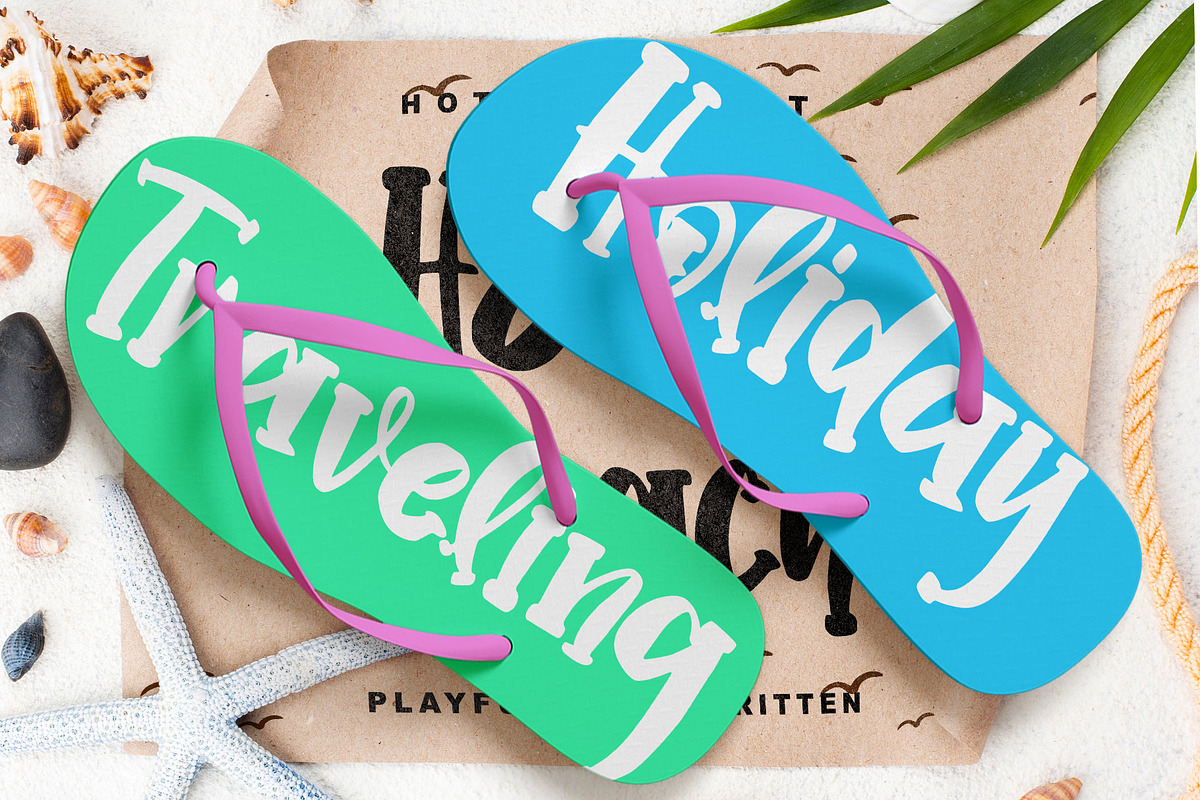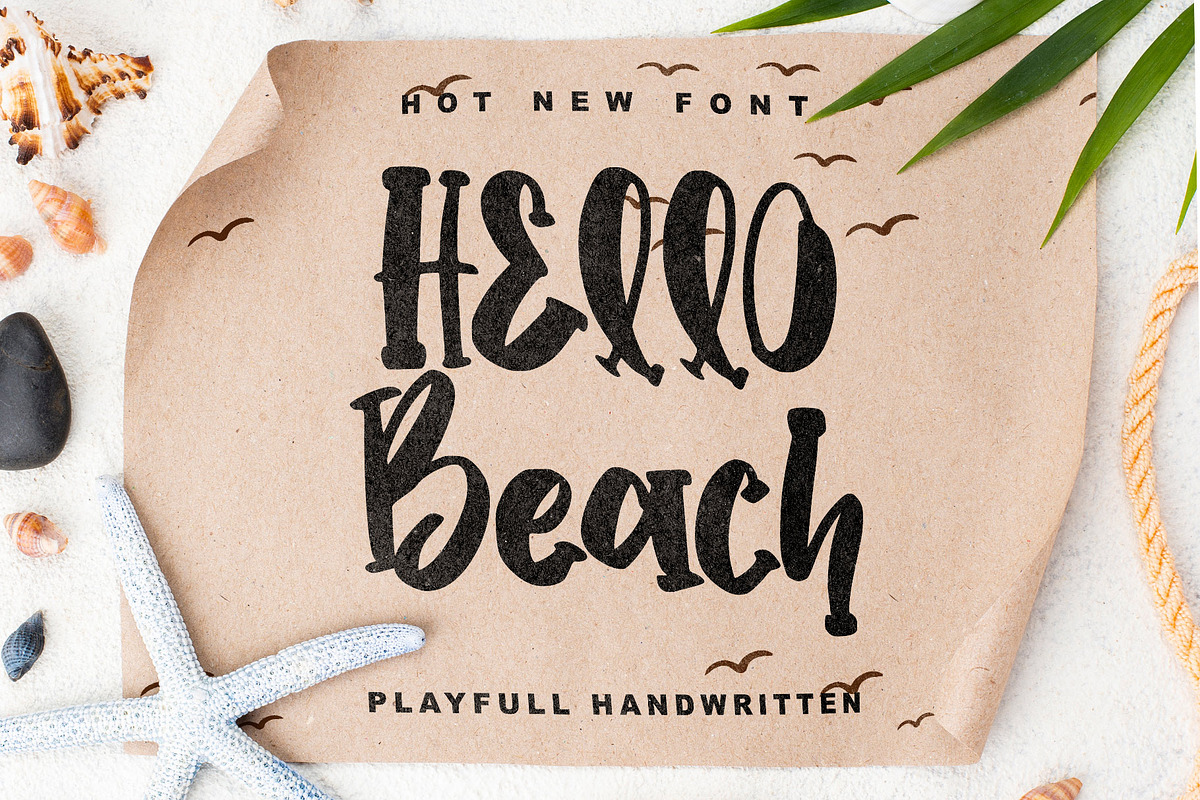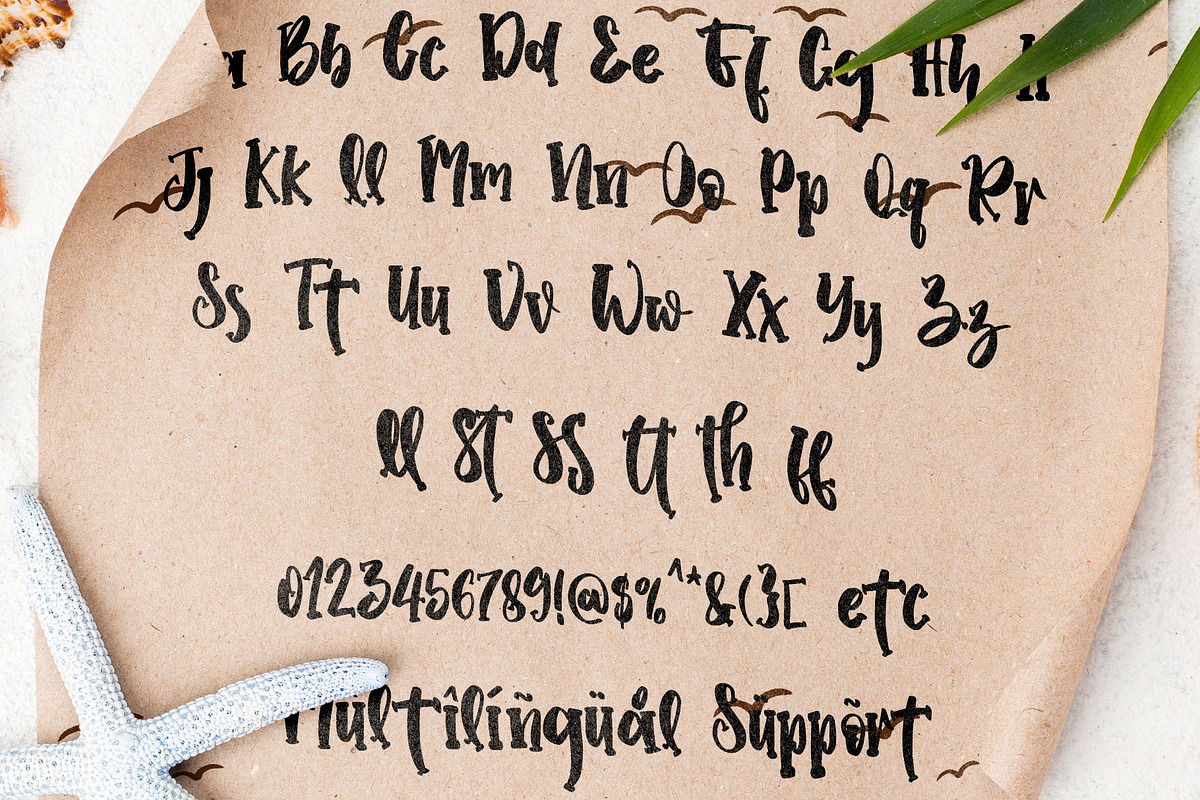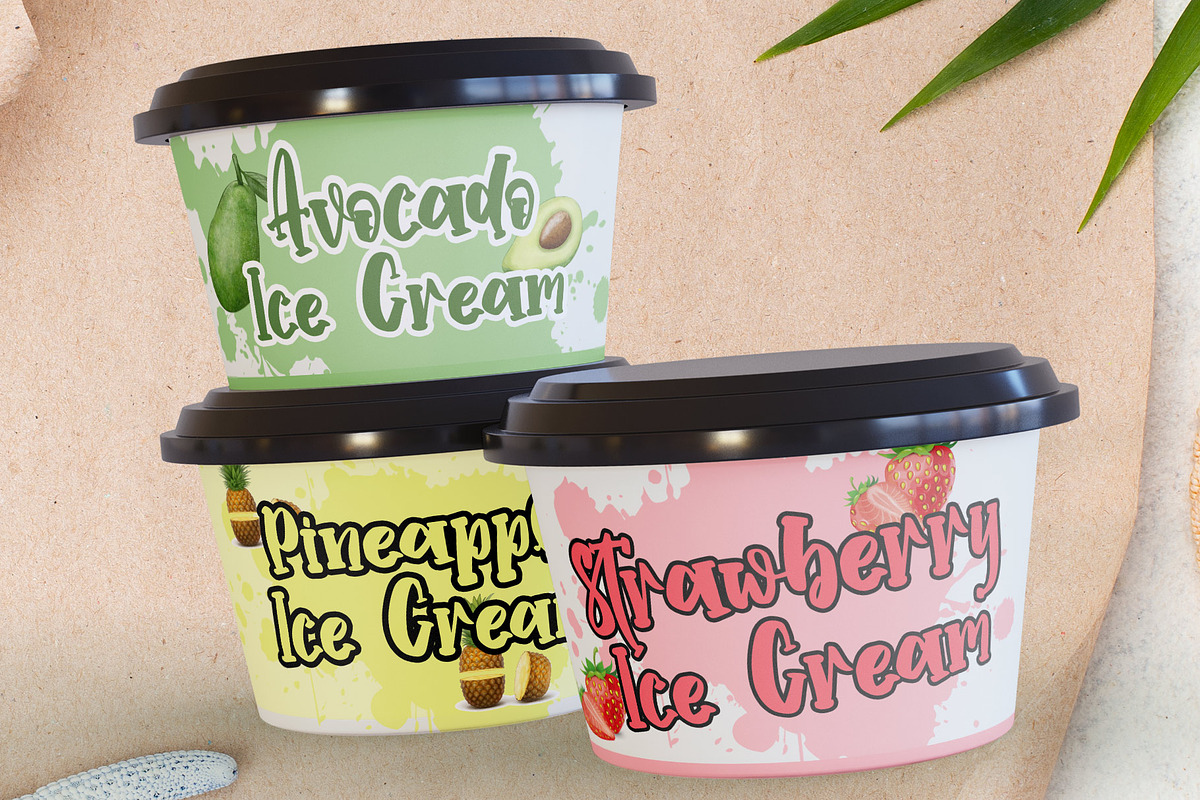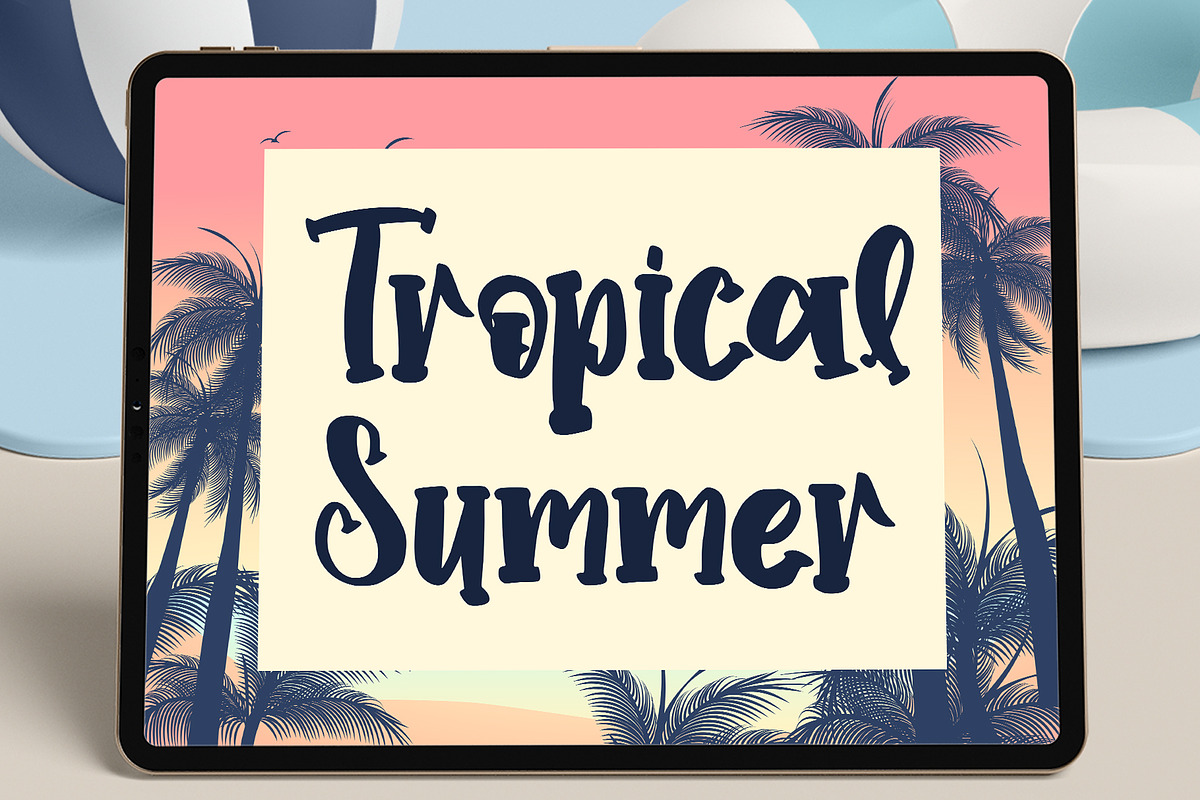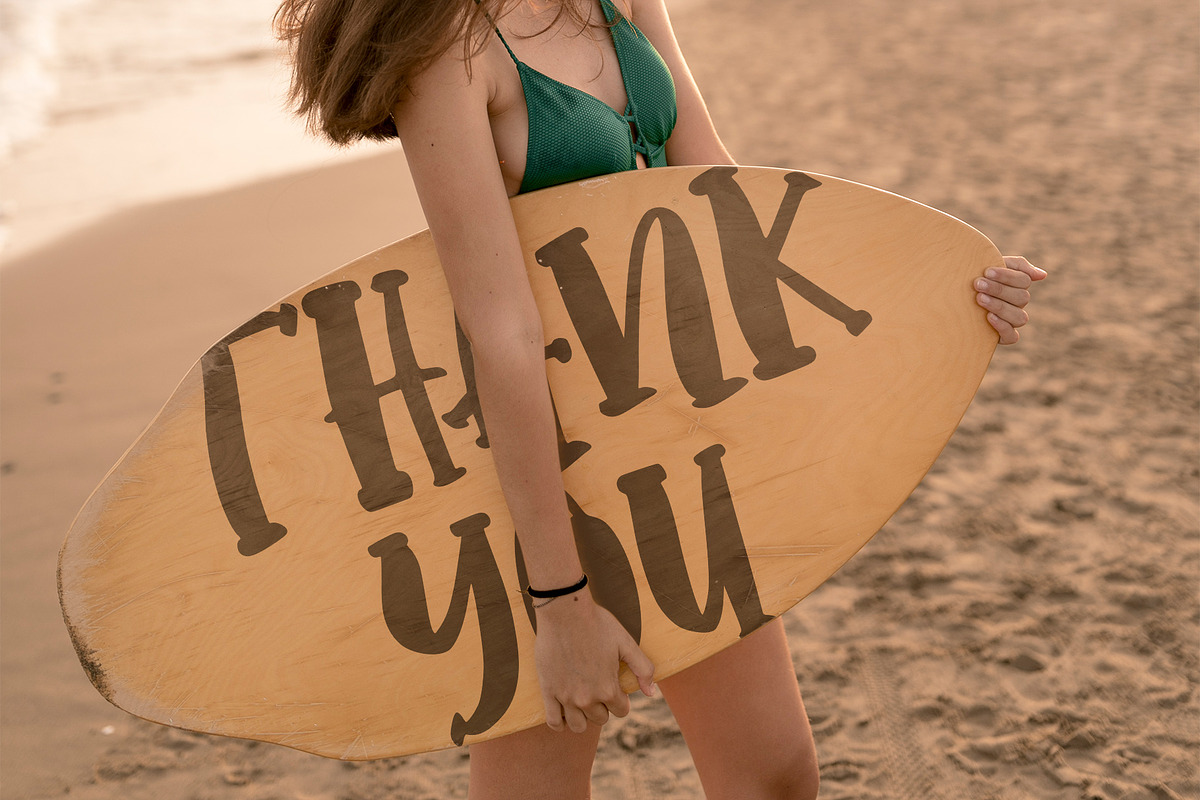
Hello Beach
Hello Beach is a friendly and elegant handwritten font. Its natural and unique style makes it incredibly fitting to a large pool of designs. Its distinct and well-interesting letters make this font a masterpiece. Fall in love with its incredibly versatile style and use it to create spectacular designs! This font is PUA encoded which means you can access all of the awesome glyphs with ease! It also features a wealth of special features including ligatures.
- Support multilingual; ä ö ü Ä Ö Ü ß ¿ ¡